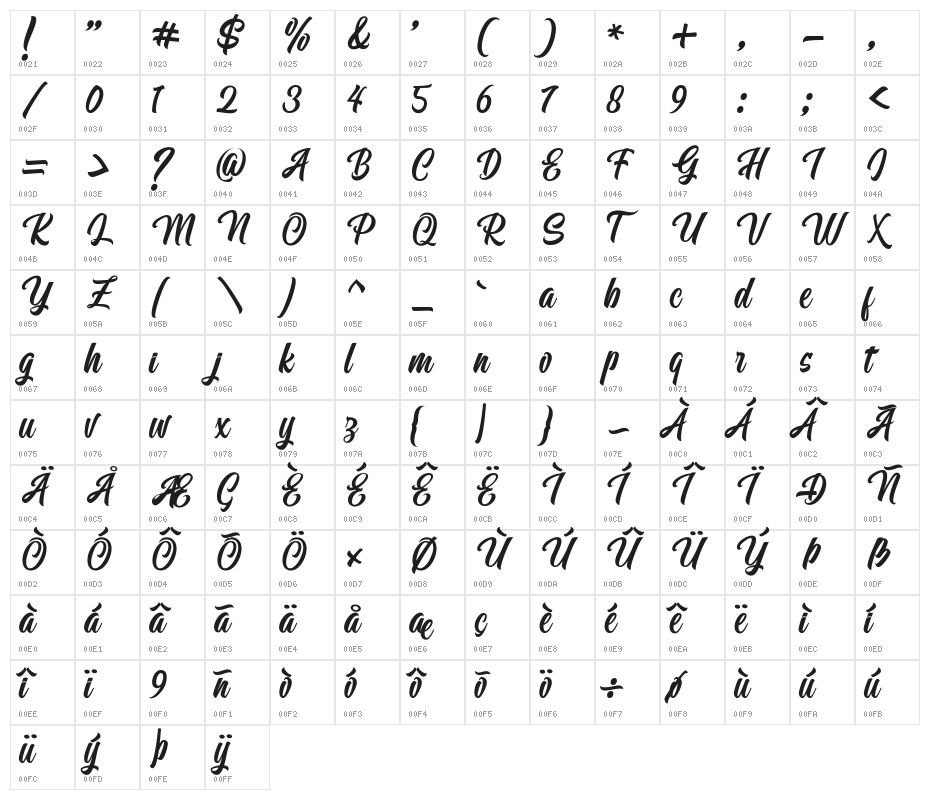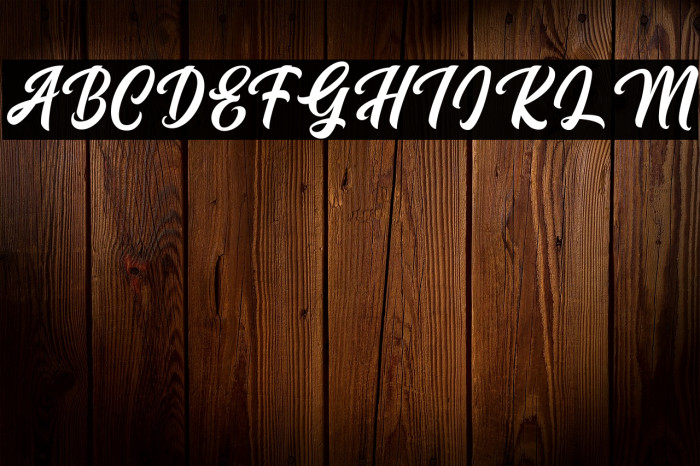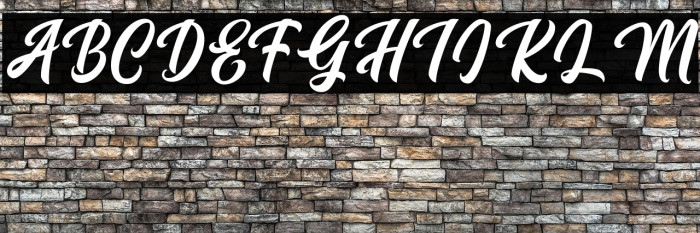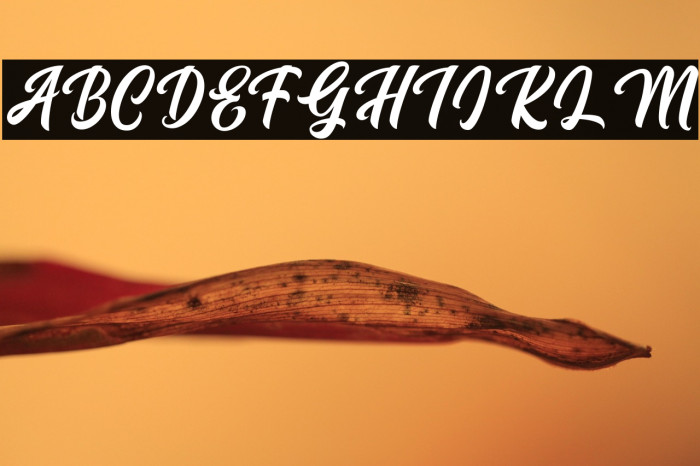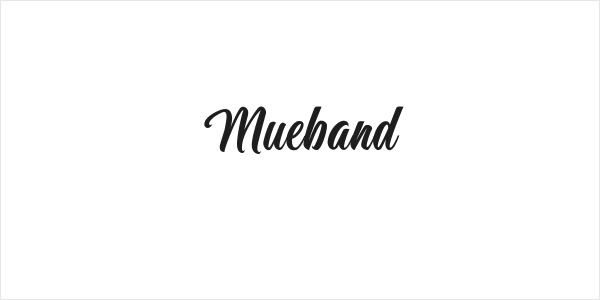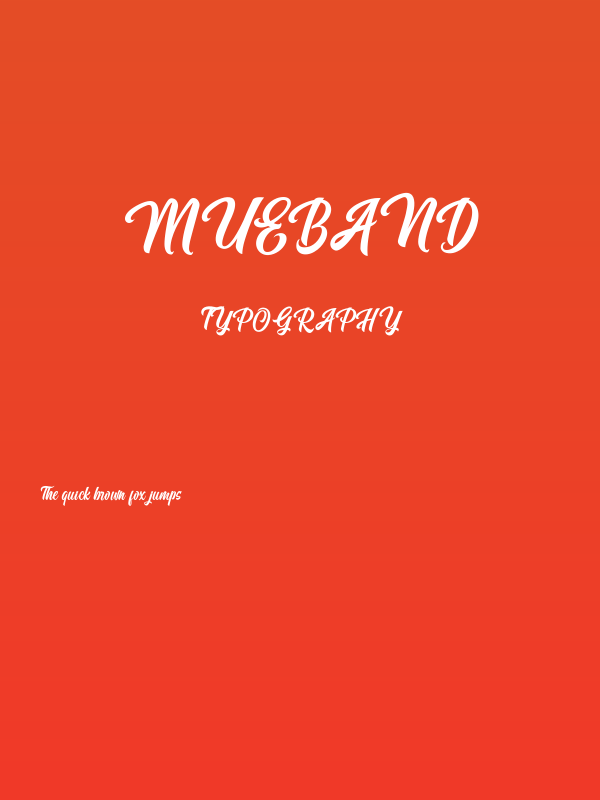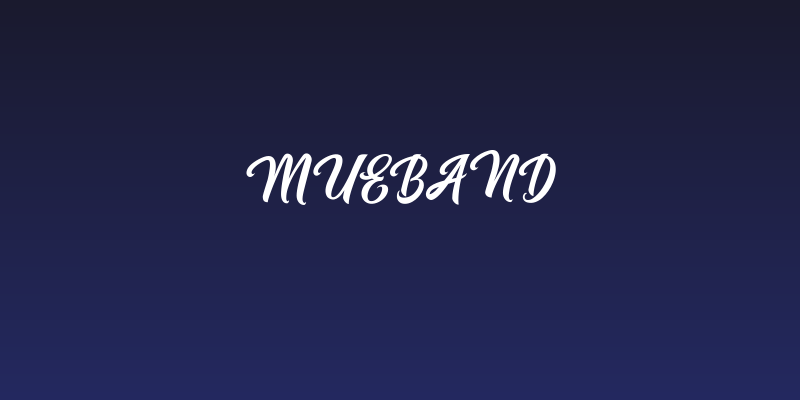
Mueband Font
Mueband Description
This font features a bold and expressive script style, characterized by its flowing, cursive letters that convey a sense of elegance and dynamism. The uppercase letters are slightly more formal, with a consistent slant and smooth curves, while the lowercase letters exhibit a more playful and casual appearance. The numerals are bold and clear, maintaining the script style with slight flourishes. Special characters are well-integrated, matching the overall aesthetic with a touch of flair. The font's thick strokes and smooth transitions between characters create a cohesive and visually appealing look, making it suitable for a variety of creative applications.